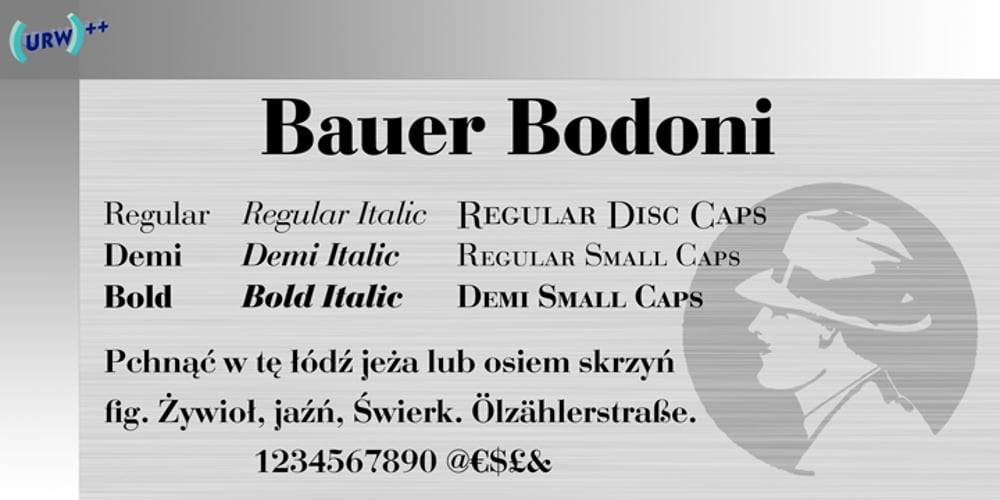
Bauer Bodoni Font Family was designed by Heinrich Jost and published by URW Type Foundry. Bauer Bodoni contains 9 styles and family package options. Giambattista Bodoni of Parma designed and cut his typefaces circa 1790. The Bodoni types were the first of the Modern type designs in which hairlines contrast sharply with bolder stems, and serifs are unbracketed. The Bauer Bodoni font family derives from a cutting for metal type in 1926, retaining many of the original features. As with all versions of this typeface, the contrast between thick and thin strokes of Bauer Bodoni should be taken into consideration as the thin strokes can appear to fade out under certain printing processes.